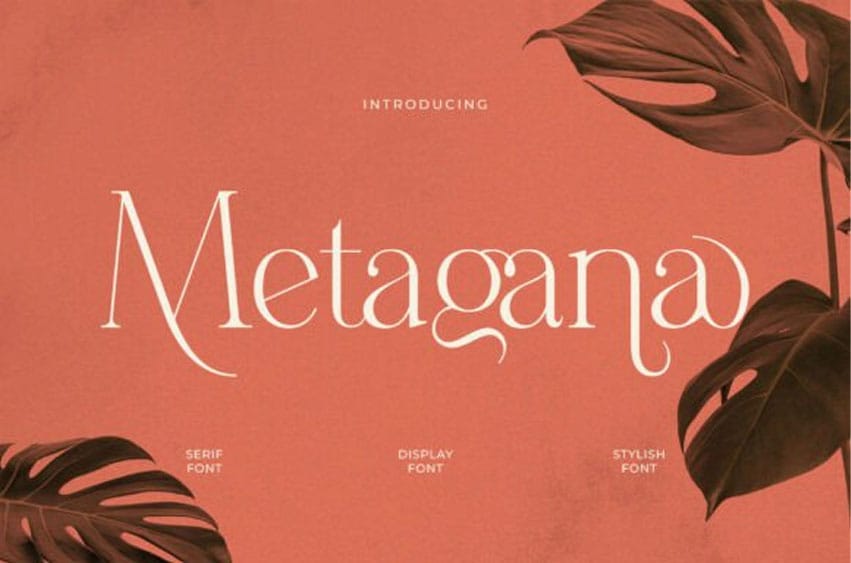
Metagana Font is a sophisticated modern display serif font that fuses contemporary minimalism with elegant detail. With its clean lines, sharp serifs, and refined letterforms, Metagana is ideal for upscale branding, editorial layouts, fashion lookbooks, and modern logo designs.
This typeface brings a polished and confident tone to any creative project, standing out with a timeless yet trend-forward appeal.